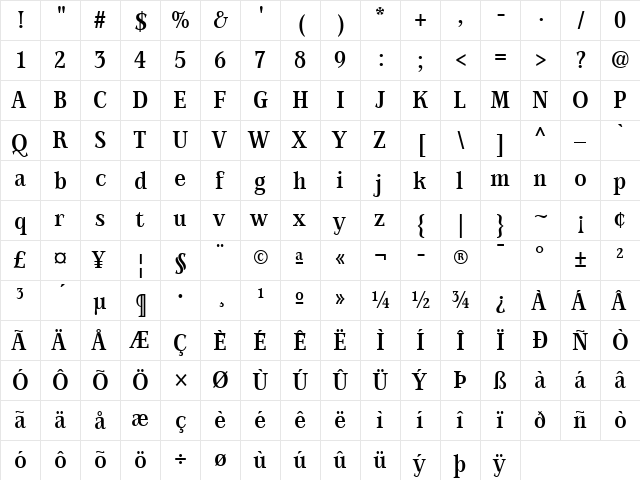
AISwan Semibold Condensed
Design Context for AISwan Typeface
AISwan offers clean, dependable letterforms without strong stylistic allegiance, making it a practical choice for designers who need flexibility. The heavy weight commands attention and anchors typographic hierarchies. Its narrow stance lets it pack a punch even in space-constrained designs.